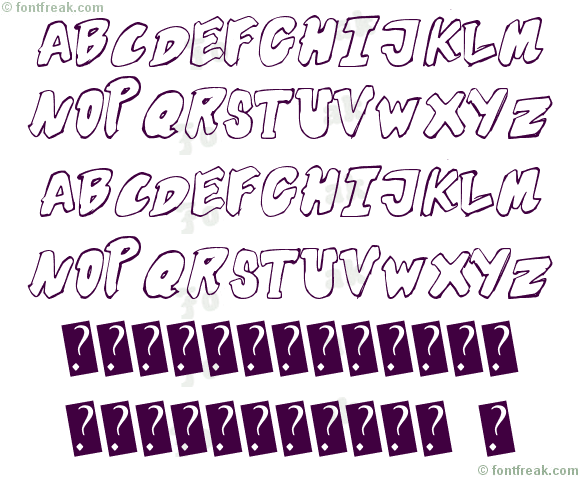
FuturisticOutline by Xerographer Fonts is a captivating display typeface that seamlessly blends modern aesthetics with a playful touch. As a display font, it offers a unique style that is perfect for grabbing attention while maintaining readability. The font features a bold outline with a distinctive stroke weight that creates a striking visual impact, making it ideal for various creative projects. The letterforms exhibit a slight contrast in thickness, lending an energetic and dynamic feel to the overall design. The spacing is well-balanced, which ensures clarity and legibility, even at larger sizes.
This font is particularly well-suited for use in eye-catching applications such as movie posters, event flyers, and promotional materials. Its futuristic vibe makes it an excellent choice for tech-related ventures or sci-fi themes, while its playful design can also be utilized effectively in children's books or playful branding projects. Small business owners and graphic designers will find this typeface invaluable for creating standout designs that resonate with their target audience.
Additionally, content creators looking to add a unique flair to their presentations or social media graphics will appreciate the versatility of FuturisticOutline. The font's distinct character will help elevate visual storytelling, making it memorable and engaging.
What sets the FuturisticOutline font apart is its ability to evoke a sense of innovation and creativity, making it an essential addition to any designer's toolkit. With its freeware license, the FuturisticOutline font free download provides an accessible opportunity for anyone looking to enhance their design projects with a fresh, modern flair. Embrace the future of typography with this standout font that is sure to leave a lasting impression.